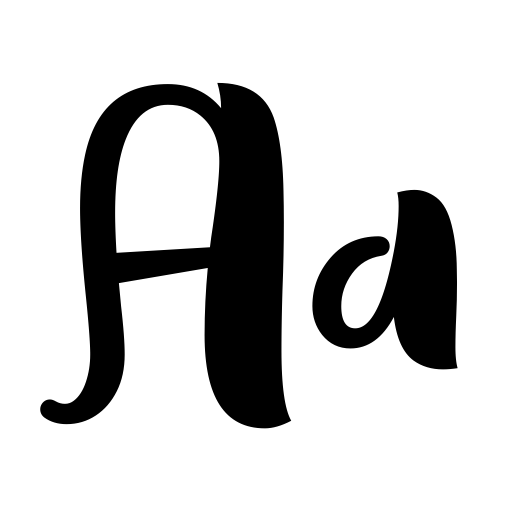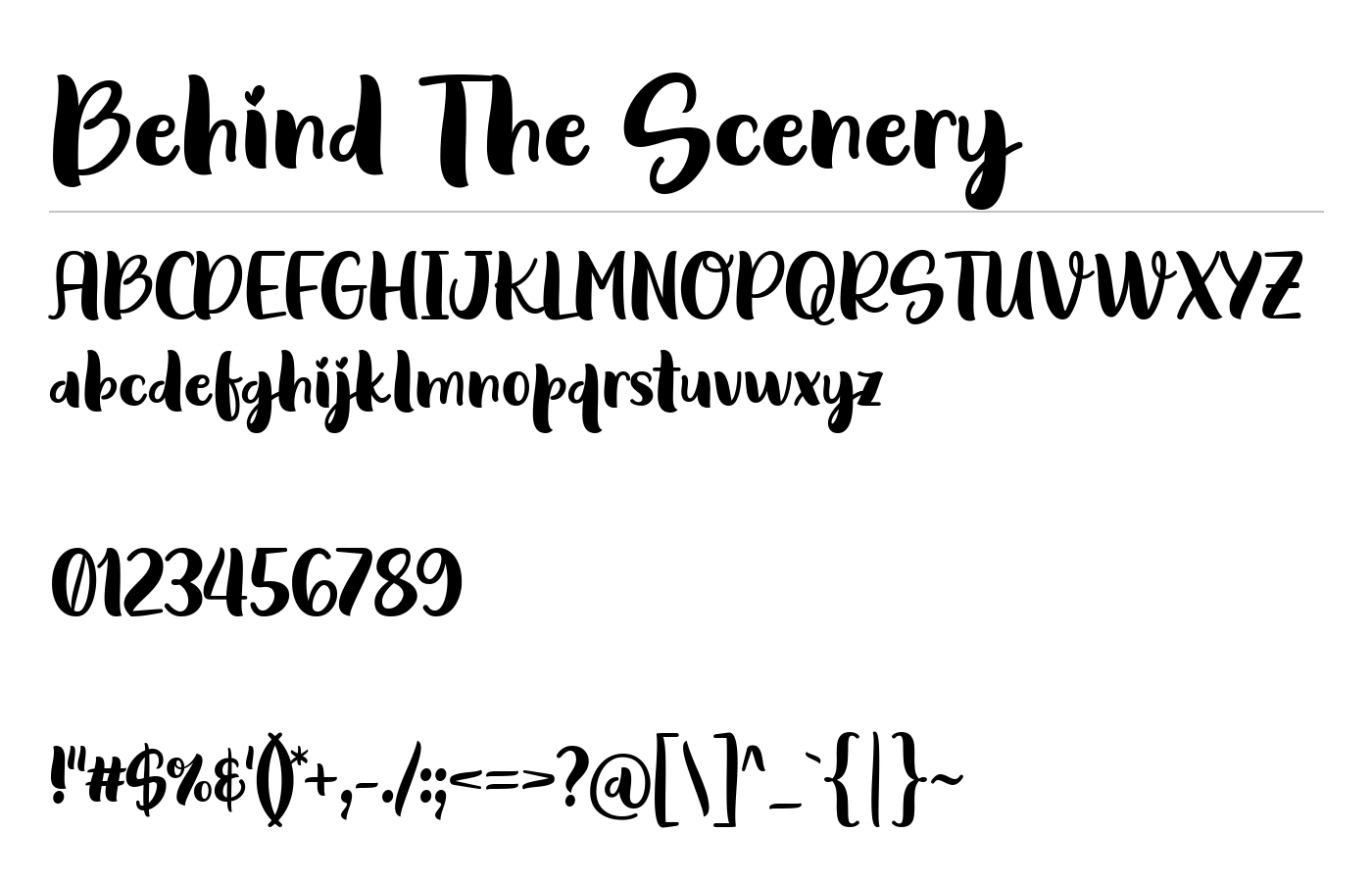
Behind The Scenery is a playful and charming handwritten-style font with bold, rounded strokes and an inviting, casual feel. Its lively letterforms exhibit moderate contrast and quirky character shapes, making it ideal for fun, creative projects such as branding, invitations, and headlines where a friendly and approachable personality is desired. This font works well in designs that seek to convey warmth and creativity with a touch of uniqueness.
Behind The Scenery Font
About Behind The Scenery Font
| Font family | Behind The Scenery Font |
| Designer | Situjuh Nazara |